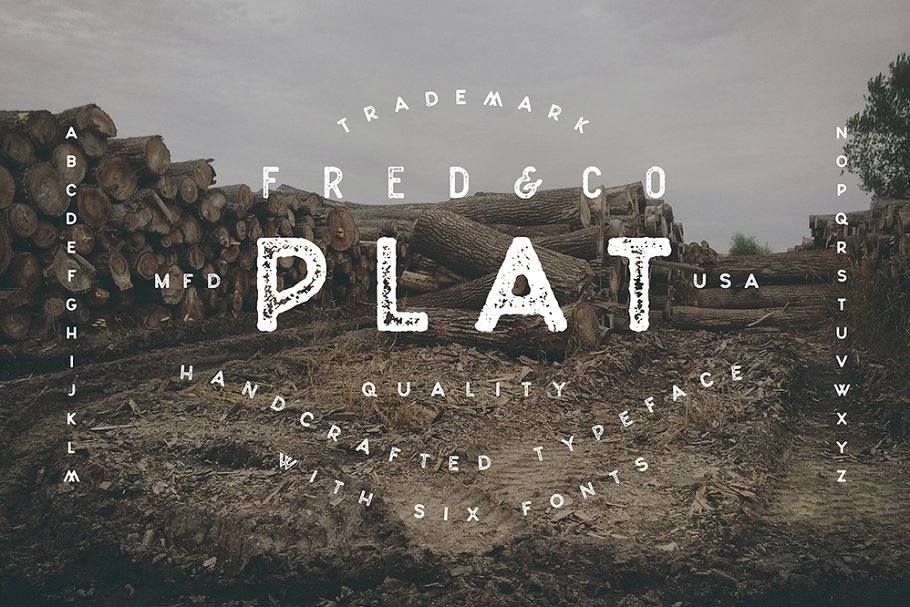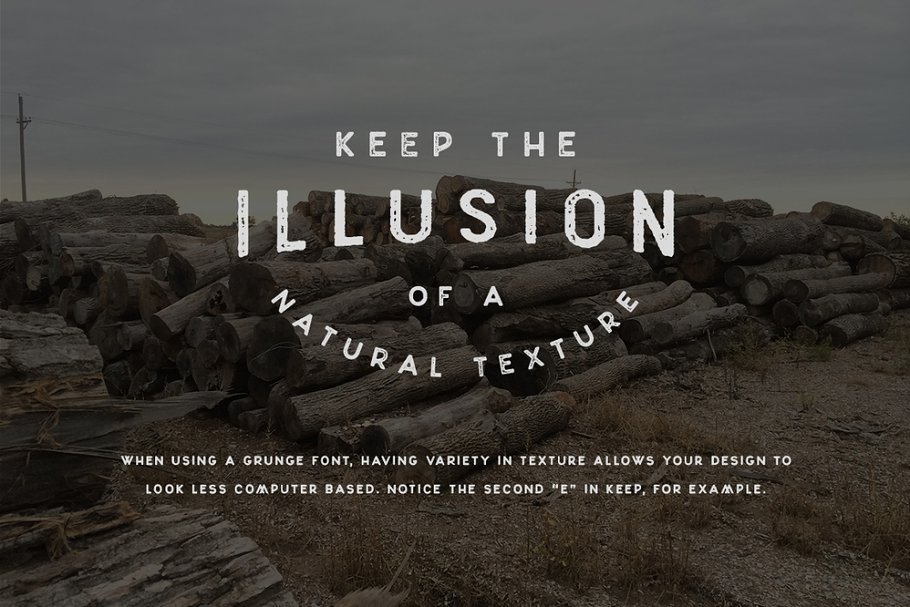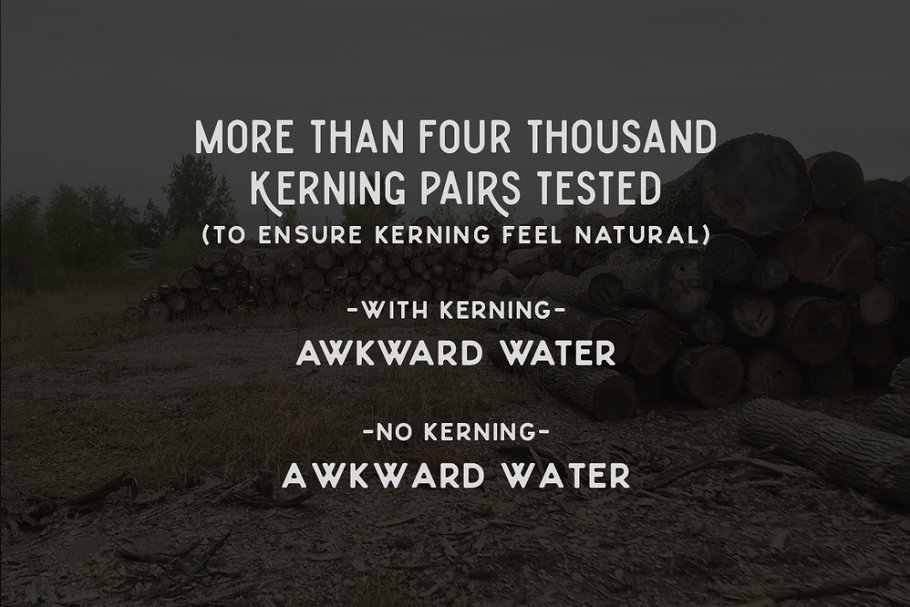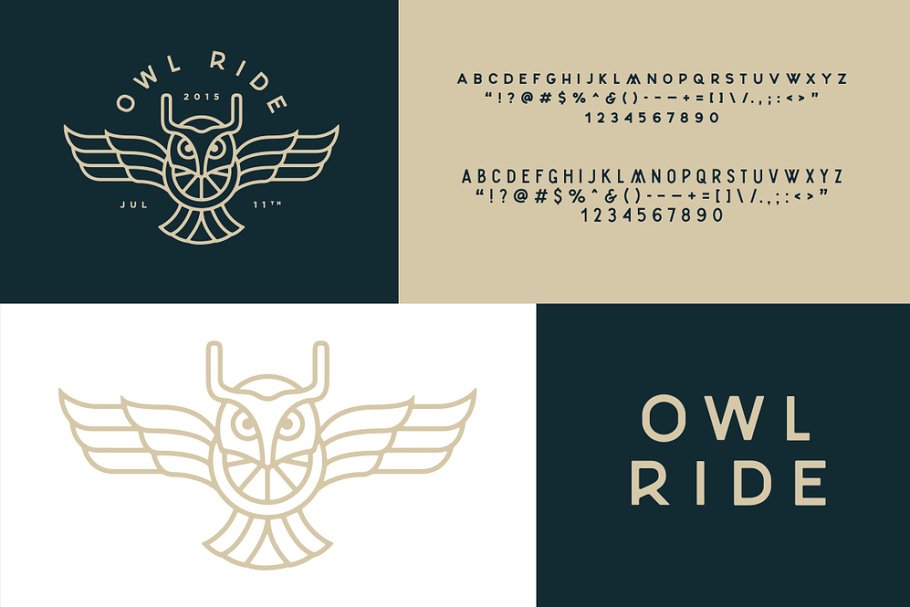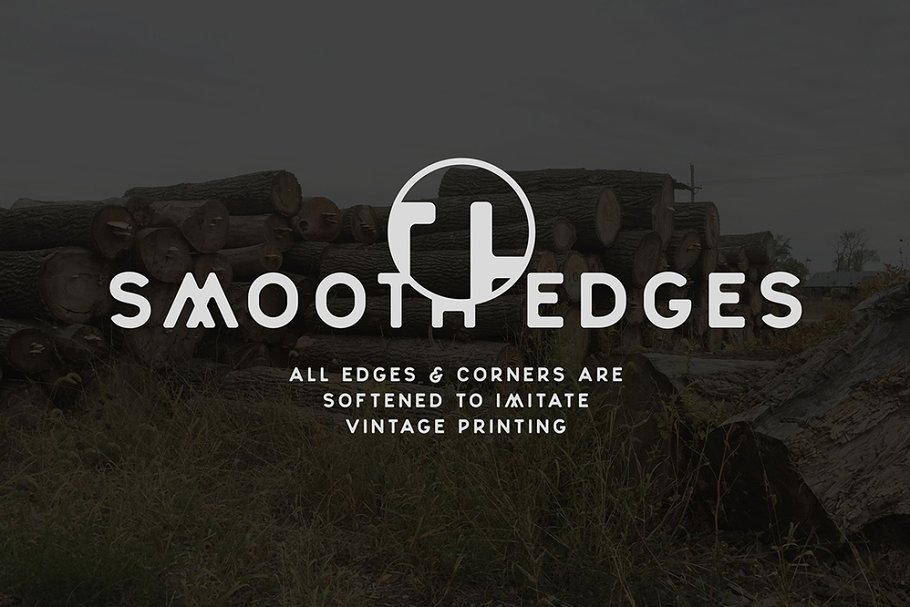
About the Plat Sans Serif Typeface Font
In 1887, Erastus Benson bought roughly 900 acres of land, He platted the land and called it Benson Place, now referred to as Benson, The land he platted provided many opportunities for entrepreneurs through the years, including myself, Many of the big moments in my life happened in Benson, so the name pays homage to how it all began, This typeface comes with 6 fonts including alternative versions of select letters, punctuation marks, and other key glyphs
A big inspiration in the design was based on vintage prints, More often than not, when you pick up an old matchbox for instance, the ink will have bled which eliminated any harsh corners, Enlarge the images for detail to see what I mean, You will also notice the usage of all caps in vintage prints, which I applied to Plat
Two key design elements that make this typeface unique are the option of grunge fonts, and the smooth edges, The grunge fonts are based on a stamp effect, where the texture is focused on the inside of the letters, So what do you get?• Plat Regular (OTF)• Plat Regular Grunge 1 (OTF)• Plat Regular Grunge 2 (OTF)• Plat Condensed (OTF)• Plat Condensed Grunge 1 (OTF)• Plat Condensed Grunge 2 (OTF)The vintage touch along with the modern approach makes it a timeless typeface